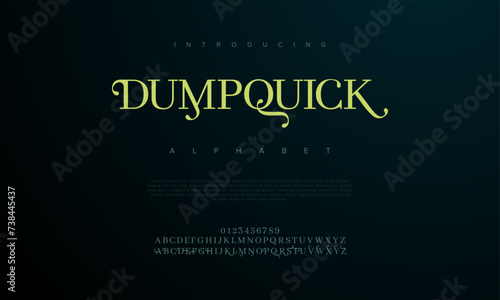
Dumpquick premium luxury elegant alphabet letters and numbers. Elegant wedding typography classic serif font decorative vintage retro. Creative vector illustration